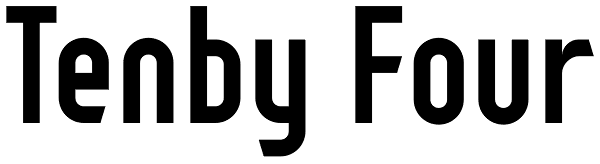
Tenby
Tenby is a series of modular geometric display sans serif fonts with a hint of Art Deco combined with a 1980s finish. The fonts' underlying grid is ten squares high. Their widths correspond to condensed (Tenby Four), normal (Tenby Five...